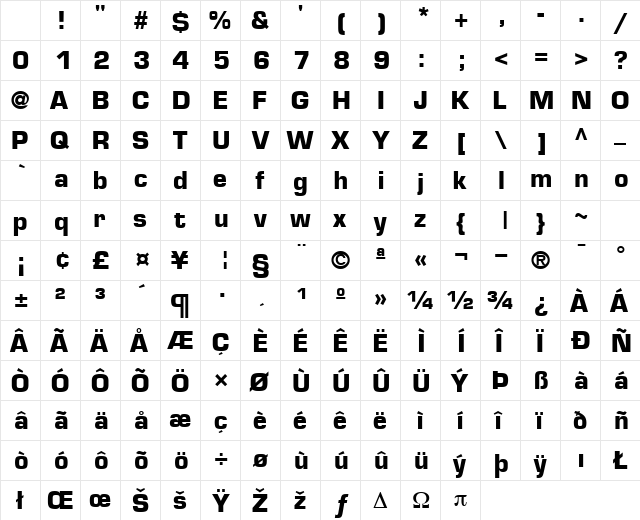
Complete PalindromeBlackSSK Regular glyph index. Displaying only characters natively supported by PalindromeBlackSSK Regular font.
PalindromeBlackSSK is a composed and adaptable typeface that performs quietly and consistently across a wide range of design contexts.